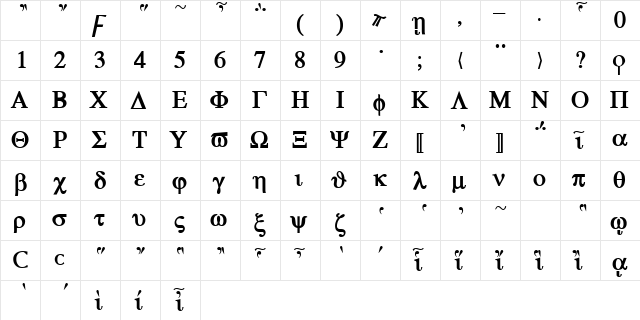
Atene Bold
Design Context for Atene Typeface
Atene takes a measured approach to typography — its balanced proportions and neutral character make it a reliable workhorse for both digital and print work. The heavy weight commands attention and anchors typographic hierarchies.